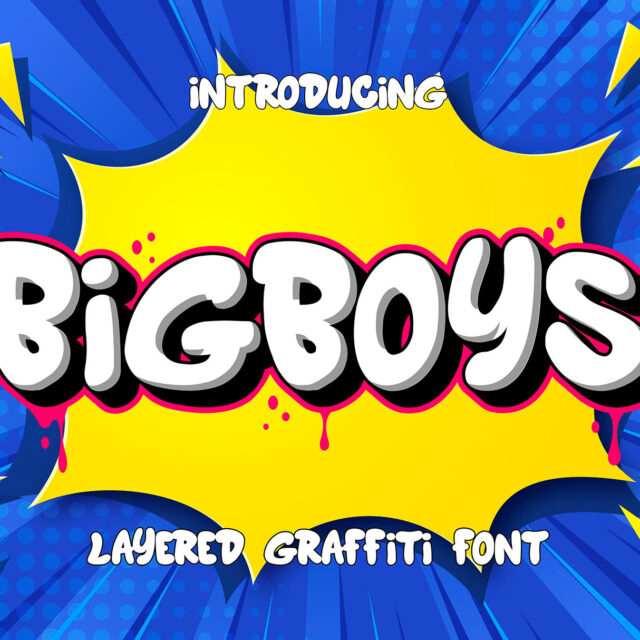
About Bigboys
Bigboys is a chubby 3D layered graffiti font with a bold and playful street-style vibe. Featuring three dynamic layers—solid, inner shadow, and extrude, this font creates a strong sense of depth and dimension, making it perfect for urban designs, hip-hop posters, streetwear branding, album covers, and graffiti-inspired projects.
With its thick, rounded letters and layered effects, Bigboys brings energy and attitude to any design. Whether you’re aiming for a fun, edgy, or rebellious look, this font adds impact and personality, making your text stand out with a bold street-art aesthetic.